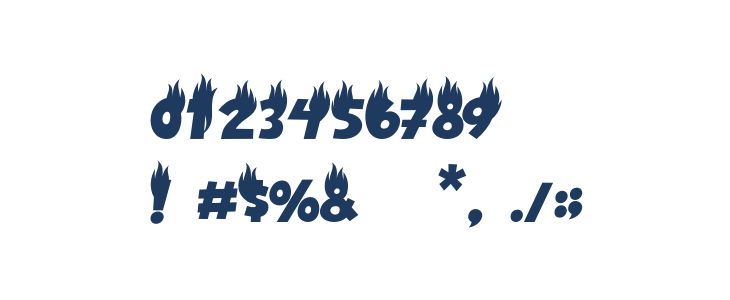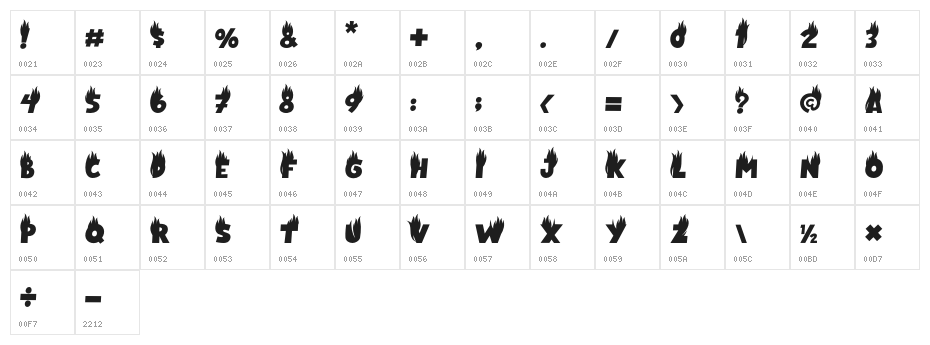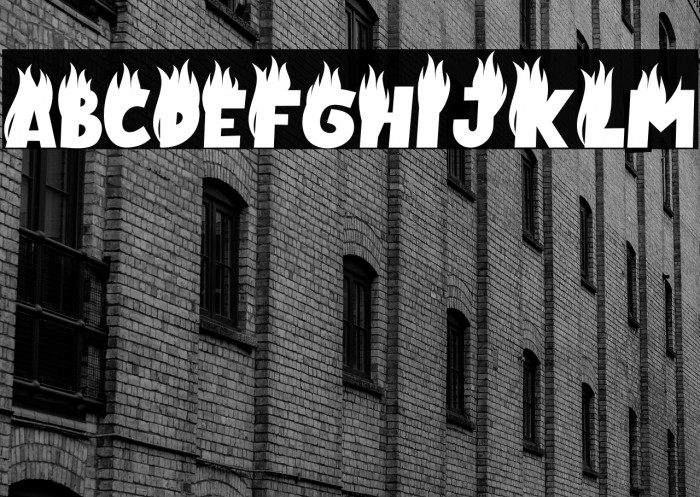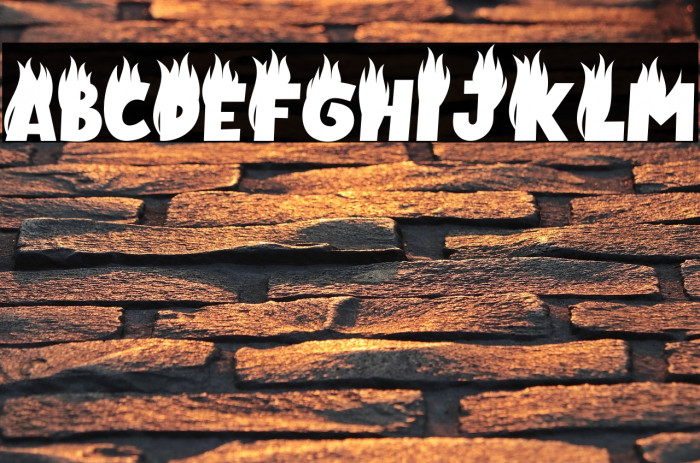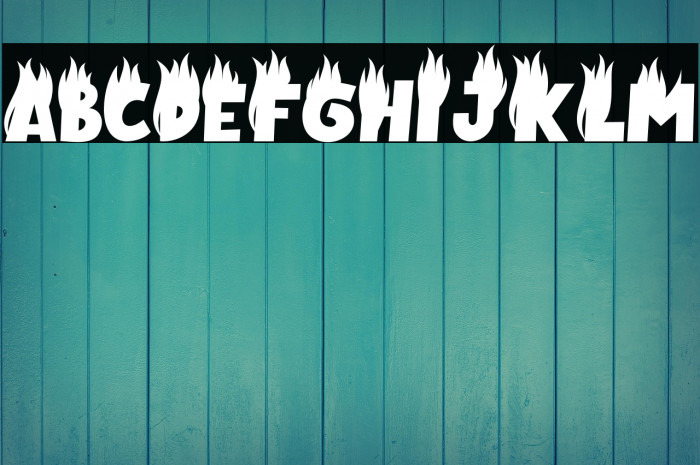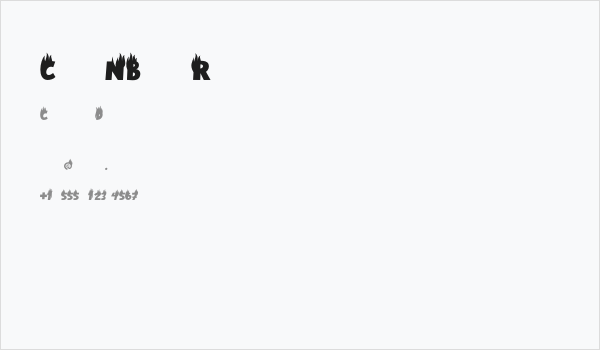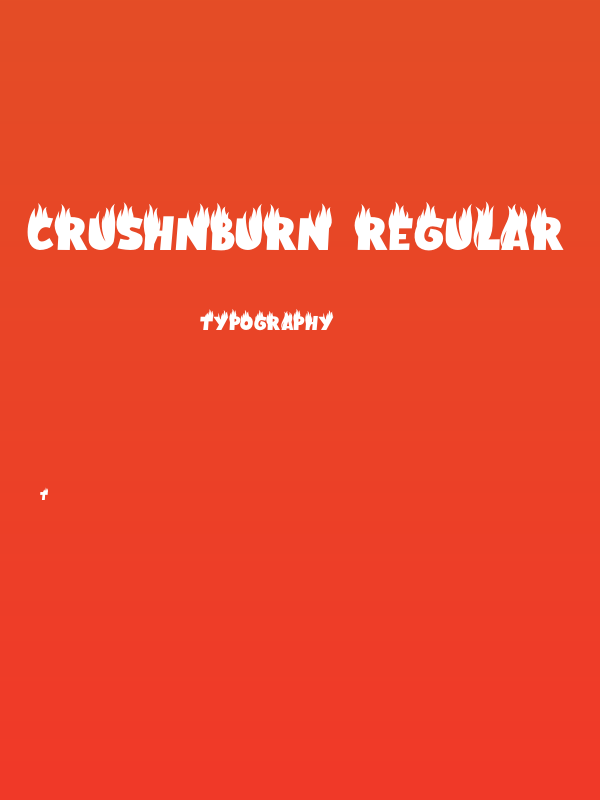
CrushNBurn-Regular Font
CrushNBurn-Regular Description
This font features bold, uppercase letters with a unique flame-like design at the top of each character, giving it a dynamic and energetic appearance. The characters are thick and solid, providing a strong visual impact. The numbers and special characters follow the same fiery theme, maintaining consistency across the font. This style is particularly eye-catching and is designed to grab attention, making it ideal for projects that require a bold statement. The font's overall design is both playful and intense, suitable for creative and adventurous themes.
| Proposed Projects | Ideal for posters, event flyers, video game graphics, and branding that requires a bold and adventurous look. |